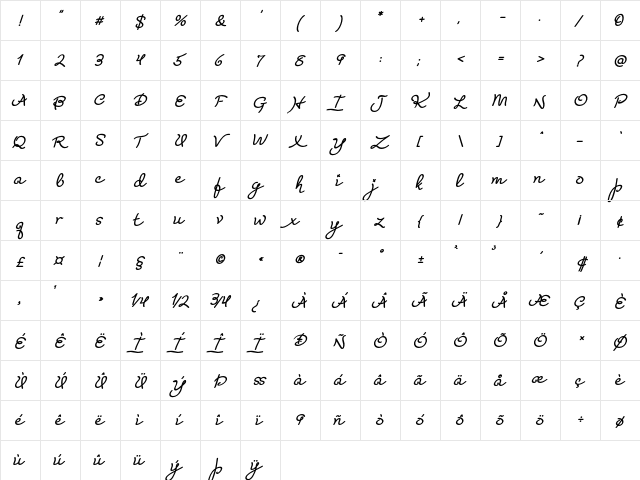
Madeleine Potens Script Potens Script
| Foundry | Jeremy Dooley |
Design Context for Madeleine Potens Script Typeface
Madeleine Potens Script flows with the natural rhythm of handwritten lettering, making it ideal for designs that call for warmth and personal expression.
Font Pairing: Combine Madeleine Potens Script with a simple geometric sans for maximum contrast — the tension between flowing curves and clean structure is a classic typographic pairing.
Pro Tip: Use Madeleine Potens Script for short runs of text — names, titles, or taglines. Extended body copy in script faces tires the eye quickly.